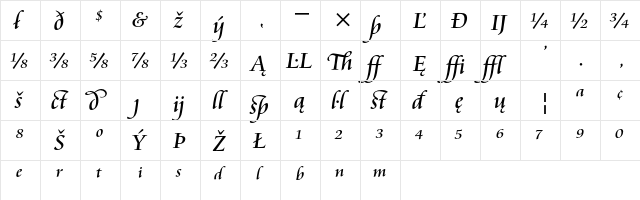
Cataneo Regular Extension
Design Context for Cataneo Typeface
Cataneo is a composed and adaptable typeface that performs quietly and consistently across a wide range of design contexts.